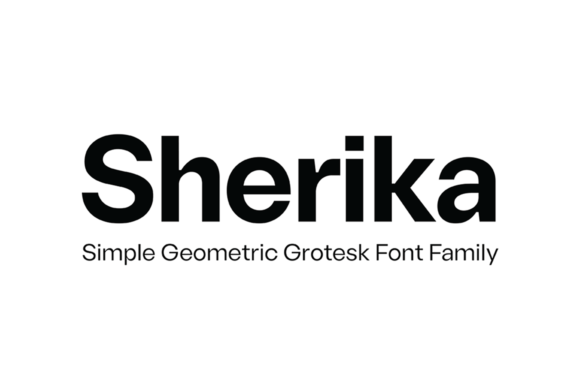
Introducing Sherika Font, a captivating sans serif font family that is sure to leave a lasting impression on your designs. This modern masterpiece, handcrafted by the talented Akbartype, is an exceptional choice for crafting striking logos, captivating headlines, and alluring branding elements.
Prepare to be mesmerized by Sherika's clean lines, sharp edges, and alluring curves that exude a sophisticated charm. This font family effortlessly captures the essence of modernity, offering a timeless appeal that transcends trends. With Sherika at your fingertips, you'll elevate your creative projects to remarkable heights, leaving a lasting impact on your audience.
Unleash your creativity and explore the boundless possibilities that Sherika presents. Its versatility shines through in both digital and print applications, making it an indispensable tool for designers, marketers, and content creators alike. Whether crafting captivating social media graphics, designing eye-catching brochures, or developing cutting-edge websites, Sherika is your ultimate ally.
Embrace the allure of Sherika and watch your designs come to life with unparalleled elegance and sophistication. This font family is more than just a collection of letters; it's a gateway to a world of boundless creativity, where your imagination knows no limits. Say goodbye to bland and ordinary typography and embrace the transformative power of Sherika.
Don't settle for mediocrity; choose Sherika and unlock your creative potential. Let your designs exude confidence, innovation, and a touch of timeless charm. Experience the difference that a truly exceptional font can make. Embrace Sherika today and embark on a journey of creative excellence.